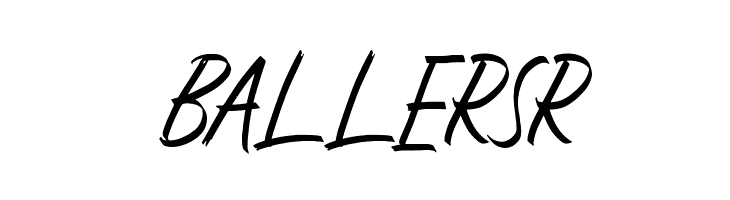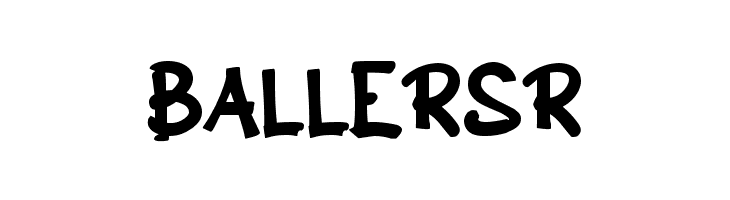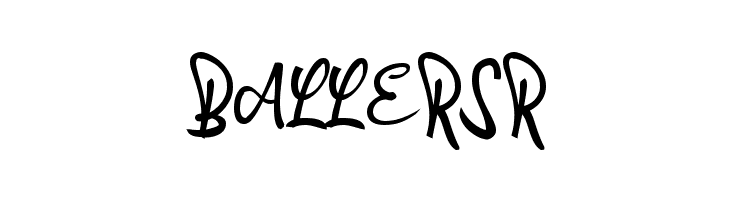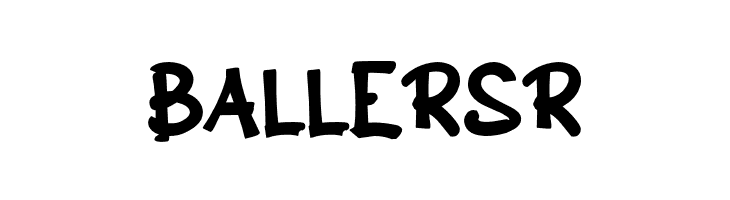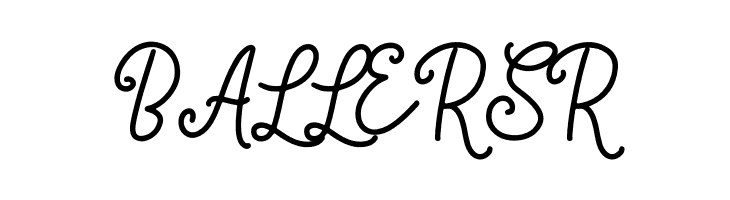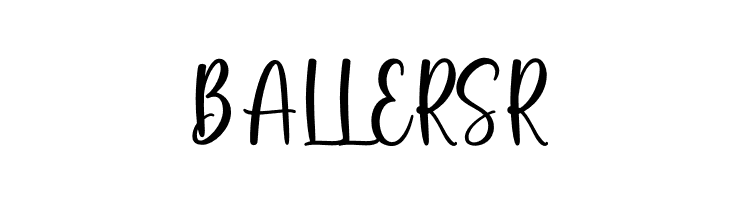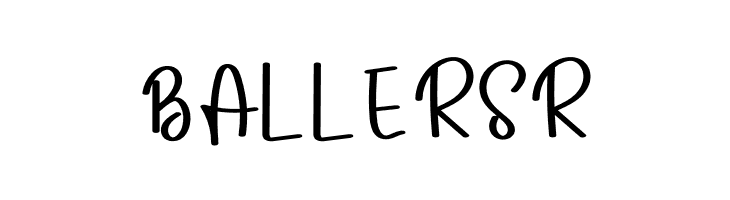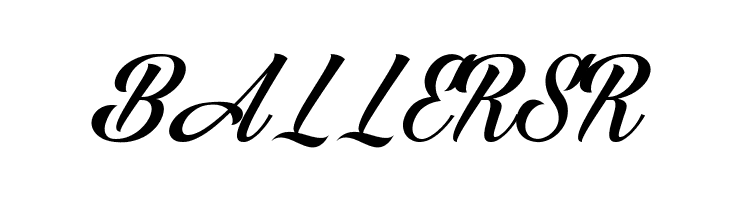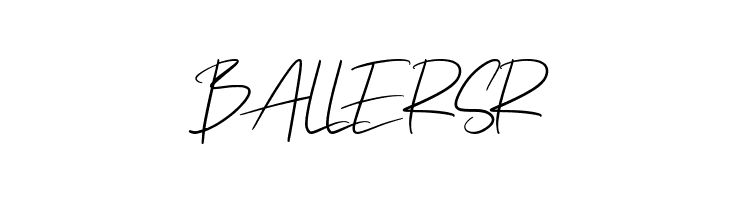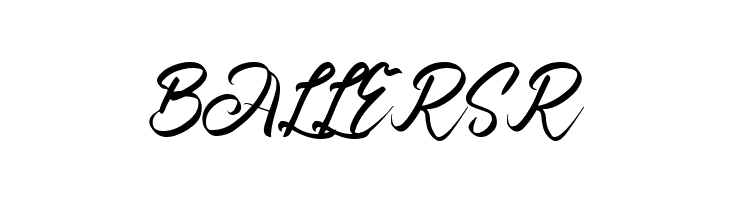
• Anggita FREE
An elegant and flowing script font with graceful curves and ornate details.
• AnggitaFREE
An elegant script font with flowing, cursive style and intricate loops.
• Angglea Wedding
A playful and elegant handwritten font with a charming, personal touch.
• Anggota
A bold, playful handwritten font with a casual and friendly style.
• Anggota
A bold, playful handwritten font with thick strokes and dynamic flow.
• Anggun Sans Regular
• Anghine Darma
A lively, cursive handwritten font with bold, expressive strokes.
• Anghine Darma
A lively, expressive script font with fluid, cursive strokes and a playful handwritten style.
• Anghones
A bold, flowing script font with elegant, interconnected characters.
• Angie
A playful, handwritten font with flowing, cursive-like strokes and varying line thickness.
• Angie
A playful, handwritten script font with smooth, flowing curves.
• Angie Atore Regular
A pixelated, retro-style font with a digital, blocky design.
• Angie BareFoot
A bold, geometric font with sharp angles and a modern style.
• Angie Groovin
A modern, geometric font with bold lines and tech-inspired design.
• Angie Impressing
A decorative font with intricate, ornamental details and bold outlines.
• Angie in Love
A playful, hand-drawn font with bold outlines and dotted interiors.
• Angie Pierced
A bold, pierced font with a modern, industrial aesthetic.
• angie Regular
• Angie TanLines
A modern, decorative font with arrow-like elements and an outlined style.
• Angie's Christmas
Hand-drawn Christmas doodle icon set.
• Angie's New House
A bold, geometric font with a strong, block-like appearance.
• Angie's New House Italic
A bold, geometric, and italic font with a modern and striking appearance.